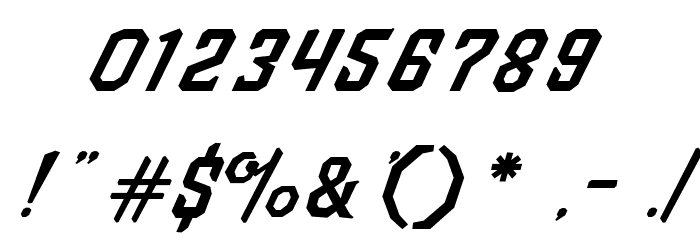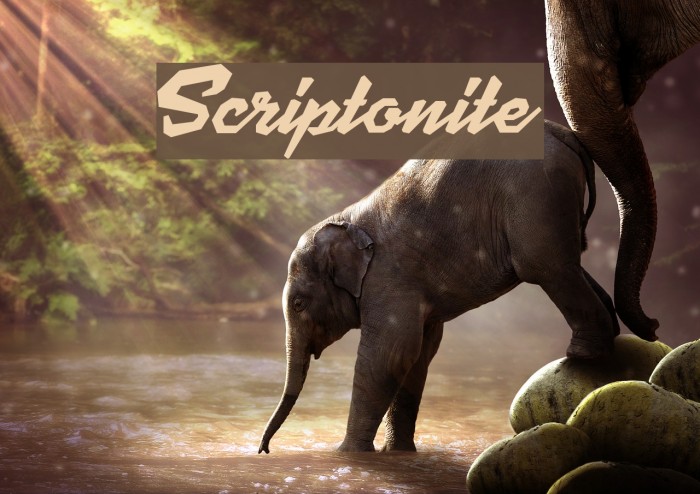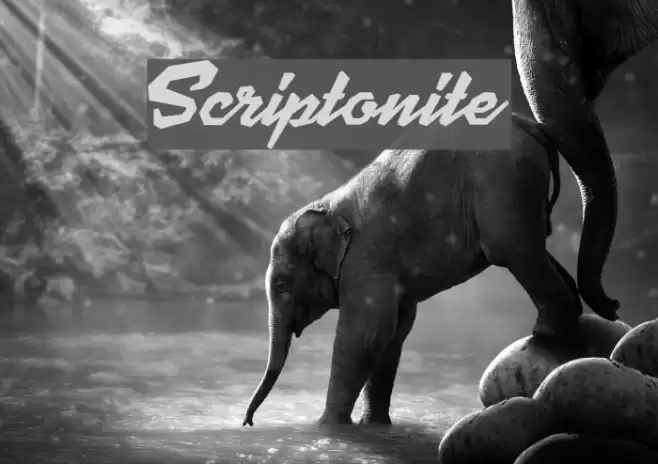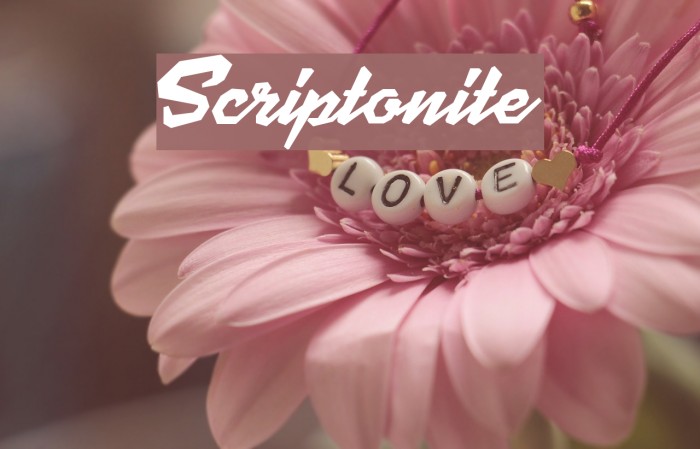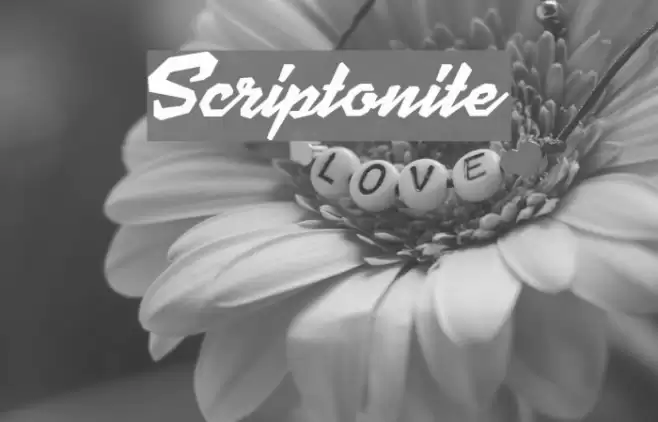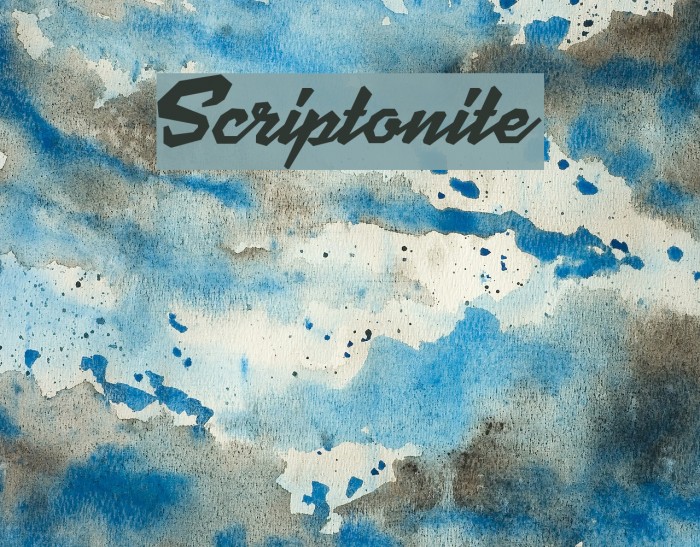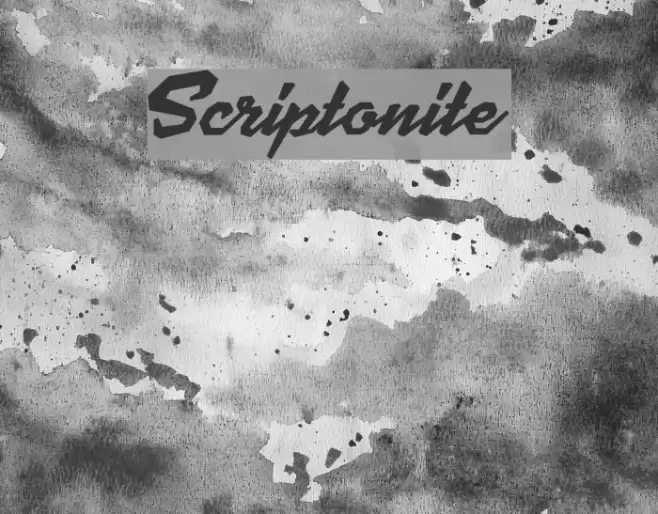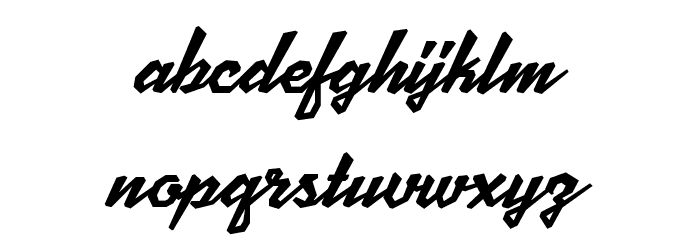
Scriptonite Font
Scriptonite Description
This font features a bold and dynamic script style with a strong, angular presence. The uppercase letters are characterized by sharp edges and a slightly slanted orientation, giving them a sense of movement and energy. The lowercase letters maintain a cohesive flow, with smooth curves and consistent stroke widths. Numbers and special characters follow the same stylistic approach, ensuring uniformity across all elements. The font's unique design makes it stand out, offering a modern twist on traditional script fonts.
| Use Case | Logos, Headlines, Posters |
| Proposed Projects | Ideal for branding, logo design, posters, and any project requiring a striking, modern script. |